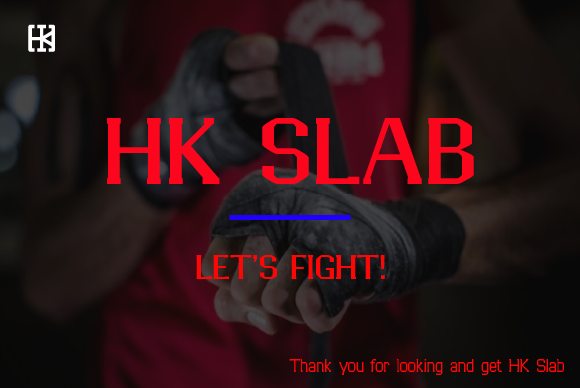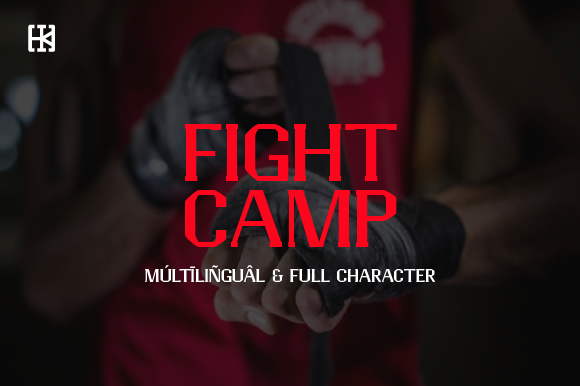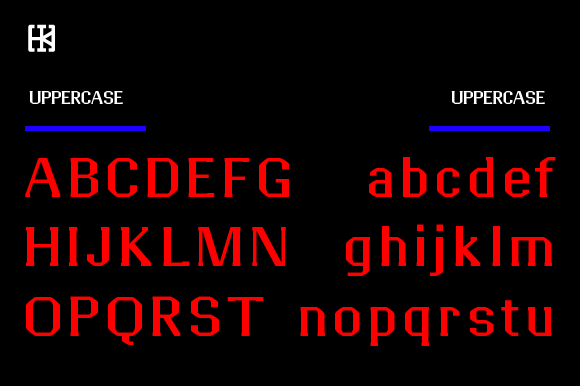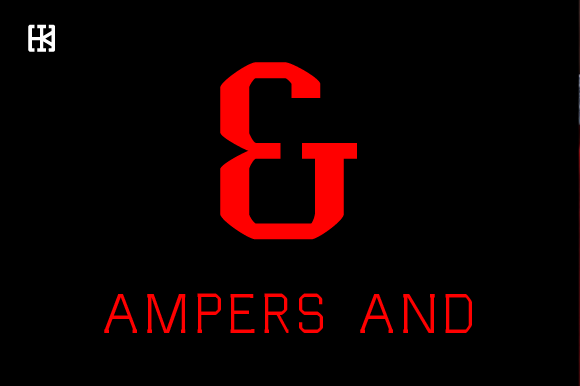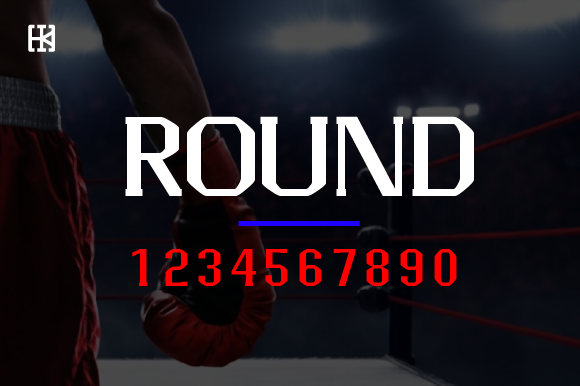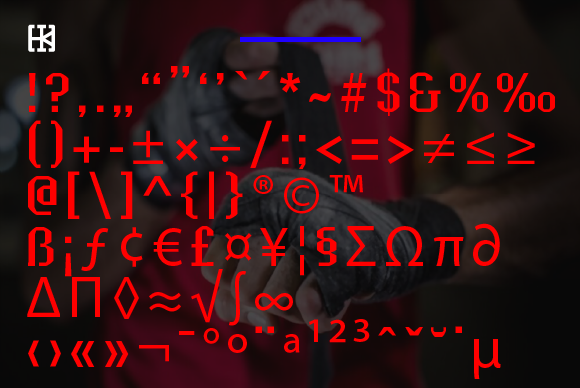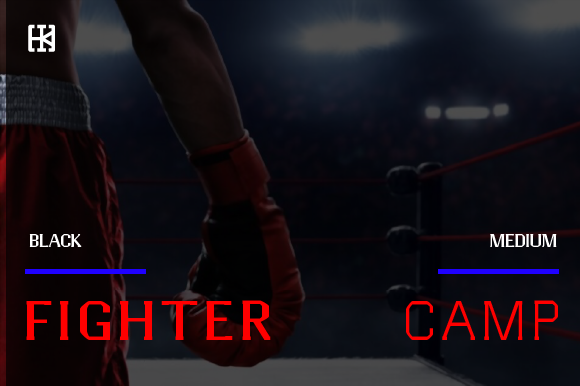
HK Slab Font
HK SLAB FONT SPECIMEN
HK Slab is a bold and thick lettered slab serif font. Whatever the topic, this font will be a wonderful asset to your font library, as it has the potential to enhance any creation.